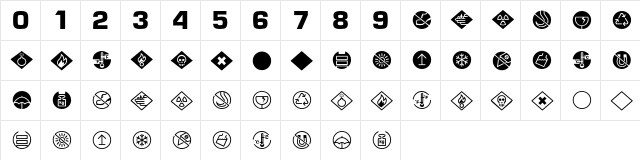
Care Pack Font Preview
Care Pack
Design Context for Care Typeface
Care is a composed and adaptable typeface that performs quietly and consistently across a wide range of design contexts.